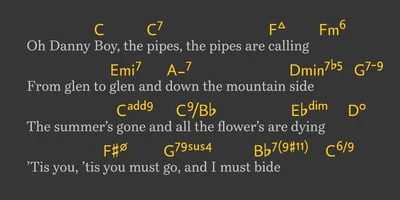
Chord Font
Chord Font is perfect for music industry branding, band logos, album cover designs, concert posters, music festival graphics, recording studio signage, instrument packaging, music education materials, songwriter portfolios, and audio equipment marketing.
What makes Chord Font exciting is its harmonic balance that perfectly captures the rhythmic flow and melodic structure found in musical composition and performance. This typeface features distinctive letterforms with rhythmic proportions and musical-inspired character details that create visual harmony reminiscent of well-composed musical arrangements. The font's melodic personality and artistic rhythm make it ideal for music-related brands seeking to convey creativity, artistic expression, and deep connection to musical culture and performance excellence.
Chord Font family includes multiple weight variations and stylistic alternatives that enhance its musical character while providing design flexibility for comprehensive music branding. The font features rhythmic ligatures, musical ornaments, and harmonic character variations that create authentic musical atmosphere for artistic and entertainment applications.
Music producers and entertainment companies consistently choose Chord Font for projects requiring authentic musical appeal and artistic credibility. The font's melodic character excels in applications targeting musicians, music enthusiasts, and creative communities who appreciate genuine artistic expression. Whether you're designing for record labels, music venues, or audio production companies, this harmonious typeface delivers the musical authenticity and creative rhythm that resonates with audiences seeking genuine artistic connection and musical excellence in their entertainment experiences.